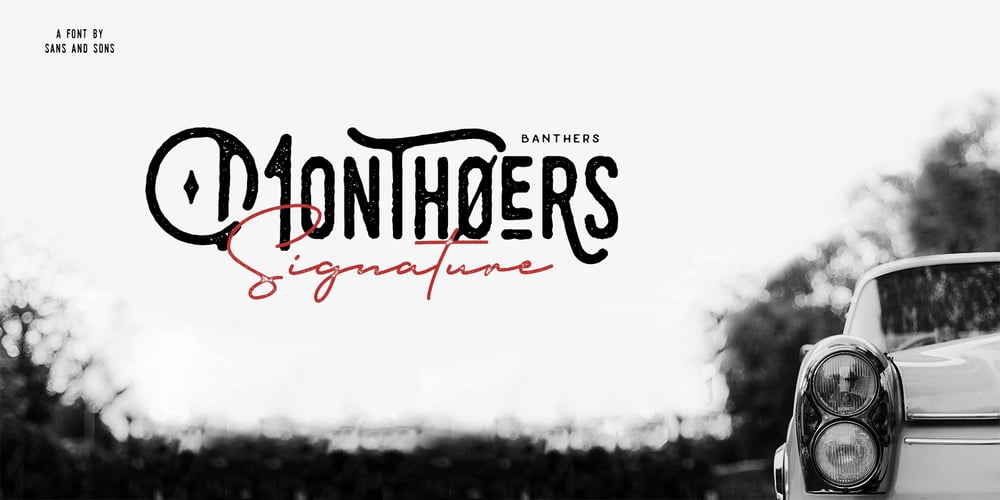
Monthoers Font Family was designed by Angga Suwista and published by Sans And Sons. Monthoers contains 6 styles and family package options. Monthoers is handmade Modern font family with Elegant and Classic style containing of sophisticated siganture-style script and elegant, classic all-caps sans font. Which is combining the style of classic typography with an modern handlettering style. you can easily combine with this pair to create classic style. This family is designed to pair harmoniously, and lend themselves to high end branding, logo designs, product packaging & invitation designs.A modern and elegant signature script font containing upper & lowercase characters, all punctutation and numerals. also contains over 20+ ligatures and 50+ alternates to create the text flow and add a custom-made feelLanguage Support:All fonts support English, French, Italian, Spanish, Portuguese, German, Swedish, Norwegian, Danish, Dutch, Finnish, Indonesian, Malay, Hungarian, Polish, Turkish, Slovenian.